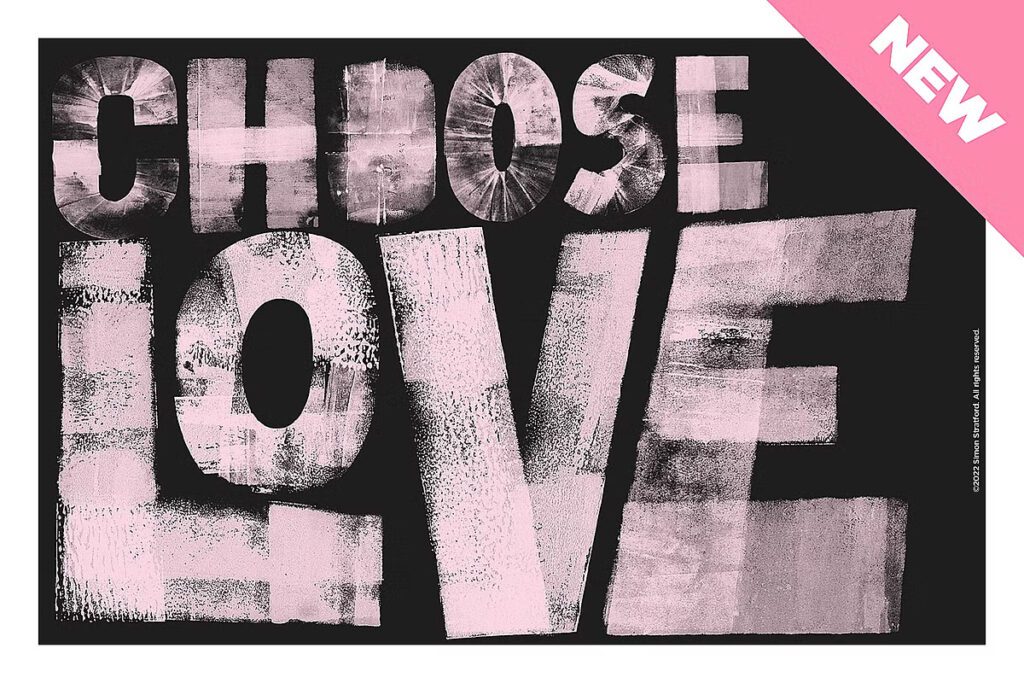
Choose Love: A Bold Hand-Printed Display Font with Letterpress Charm
If you’re a designer looking to add an edgy, handmade touch to your projects, the Choose Love display font by Simon Stratford is the perfect solution. Inspired by the raw, imperfect beauty of letterpress printing, Choose Love is packed with awesome print details and handcrafted style. Whether you’re designing posters, logos, or social media graphics, this bold font will elevate your work with its authentic, hand-printed feel.
Why Choose Love Font Stands Out
1. Hand-Printed Letterpress StyleThe Choose Love font brings a hand-crafted, vintage appeal that you can’t find with most digital fonts. Made using cardboard cutouts and ink, the details of the print marks add a level of imperfection and authenticity that brings character to any design. Each letterform is bursting with personality, making your projects look like they’ve been manually printed.
2. Three Font VersionsChoose Love includes three different versions:
SVG: Adds rich detail and transparency for stunning, high-quality prints.
Ligature: Includes multiple two-letter combinations that enhance the design.
Standard: For those looking for a traditional yet handcrafted typeface.
With these three variants, designers have the flexibility to create bold, dynamic text lockups that feel organic and original.
4. Extensive Glyph and Ligature OptionsEach letterform (A-Z) comes with three alternatives, ensuring that your design will never look repetitive. You can seamlessly swap out repeating letters, making it look more random and natural, just like a real letterpress print. Choose Love also features ligatures, which can be easily accessed via the glyphs panel in Adobe Photoshop and Illustrator, giving you even more design possibilities.
Uppercase glyphs only (unicase font)
Perfect for Designers Seeking Imperfection
With its handcrafted charm and raw imperfections, Choose Love is ideal for designers looking to create unique, character-filled projects. Whether you’re working on a punk rock poster, a bold brand logo, or even album art, this font adds a touch of rebellious spirit to your design. As Simon Stratford puts it, “It’s bold. It’s far from perfect. It’s full of imperfections and dirty marks—just the way I like it.”
With Choose Love, your designs will stand out with their bold, imperfect style. The authenticity of the handcrafted font combined with its multiple alternatives and ligatures makes it the ideal choice for any project that needs to break free from the ordinary. If you’re ready to give your designs a rebellious, letterpress-inspired look, this font is a must-have.